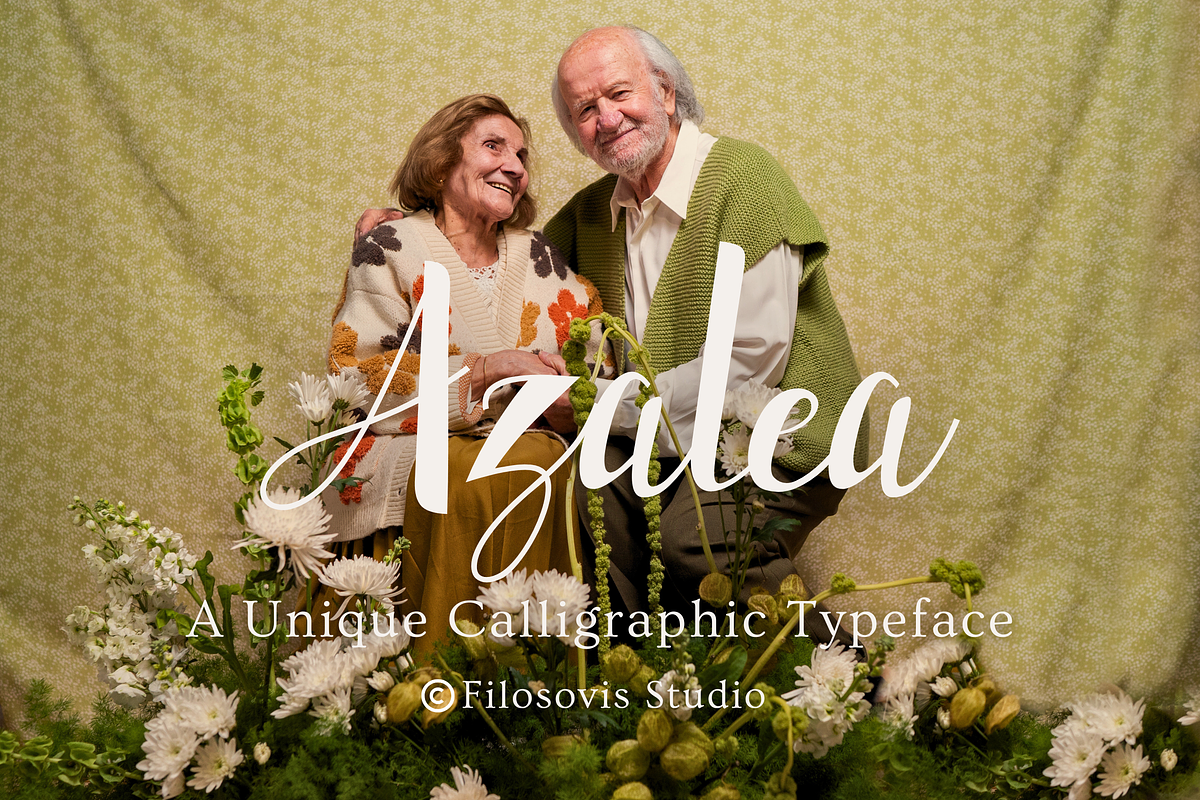
Azalea | Calligraphic Typeface Free Download
Please note, to use this font for commercial purposes, you must purchase the full version. Azalea is a stunning calligraphic typeface that brings elegance and sophistication to any design. With its flowing, graceful letterforms, this font is perfect for creating wedding invitations, logos, branding, and luxury design projects. Whether you're designing for a high-end brand, a romantic event, or an artistic project, Azalea adds a refined, handwritten touch to your work. Test it out and enjoy free download access for personal use. Experience the elegance of Azalea | Calligraphic Typeface Free Download before purchasing the commercial license. Elevate your designs with the timeless beauty of Azalea.